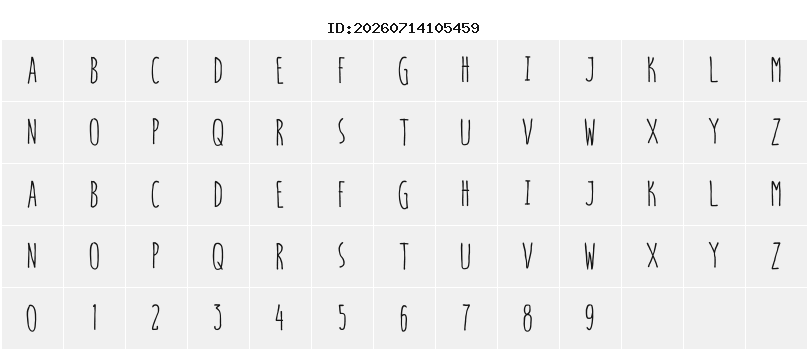
hello goodbye Preview
• Font Name: hello goodbye
• Full Font Name: hello goodbye
About hello goodbye.otf
hello goodbye.otf is a modern, elegant sans-serif font designed for ultimate readability and visual harmony. Perfect for branding, headlines, web design, and print materials.